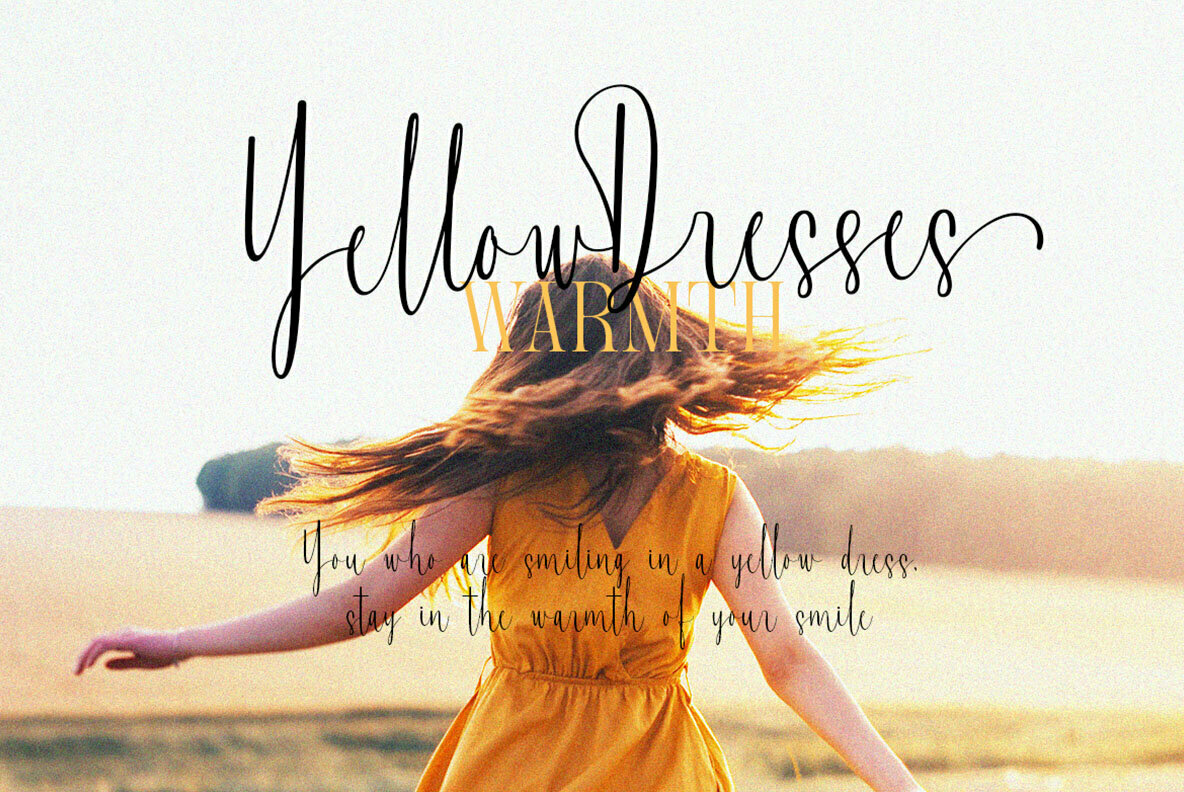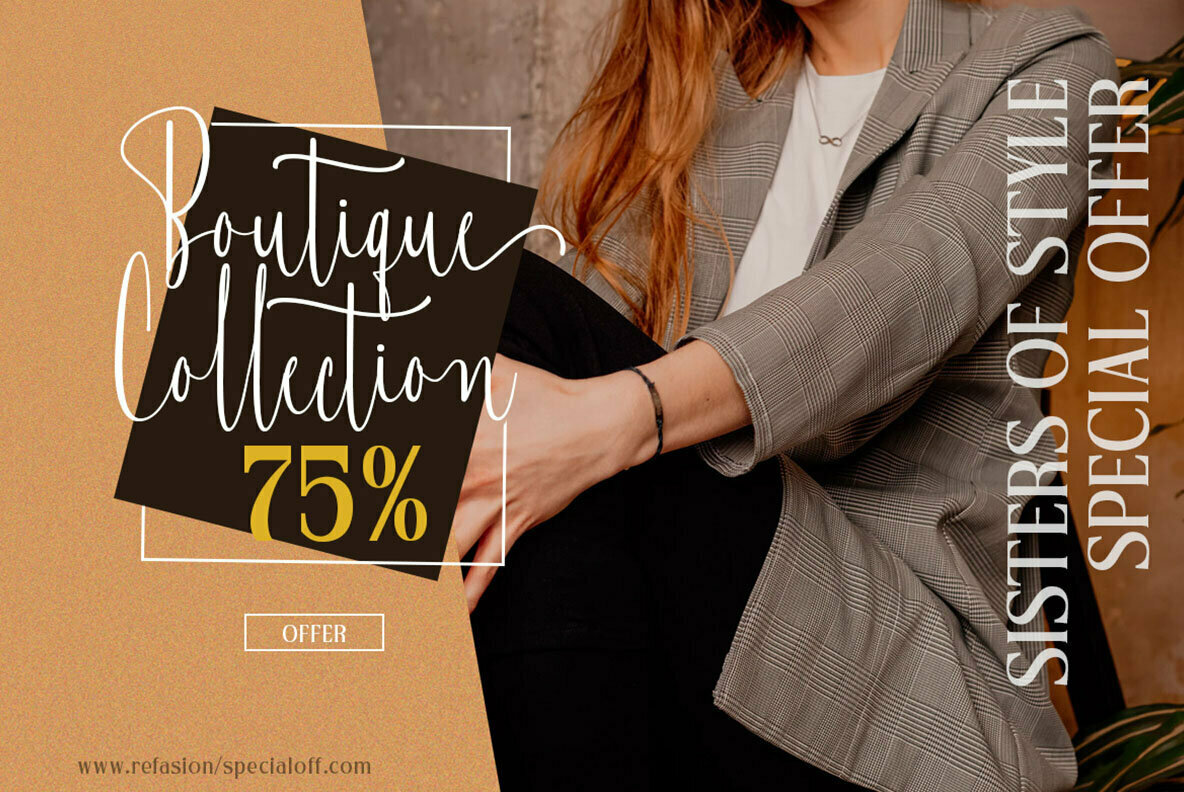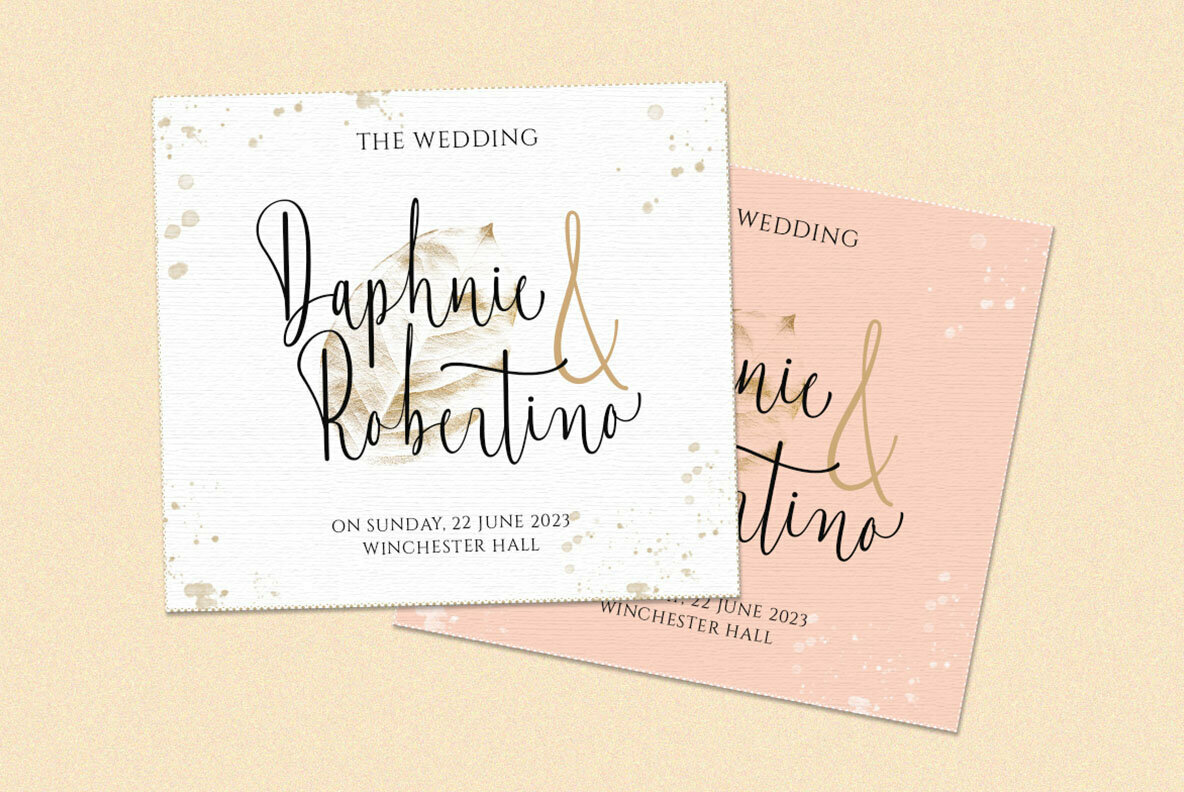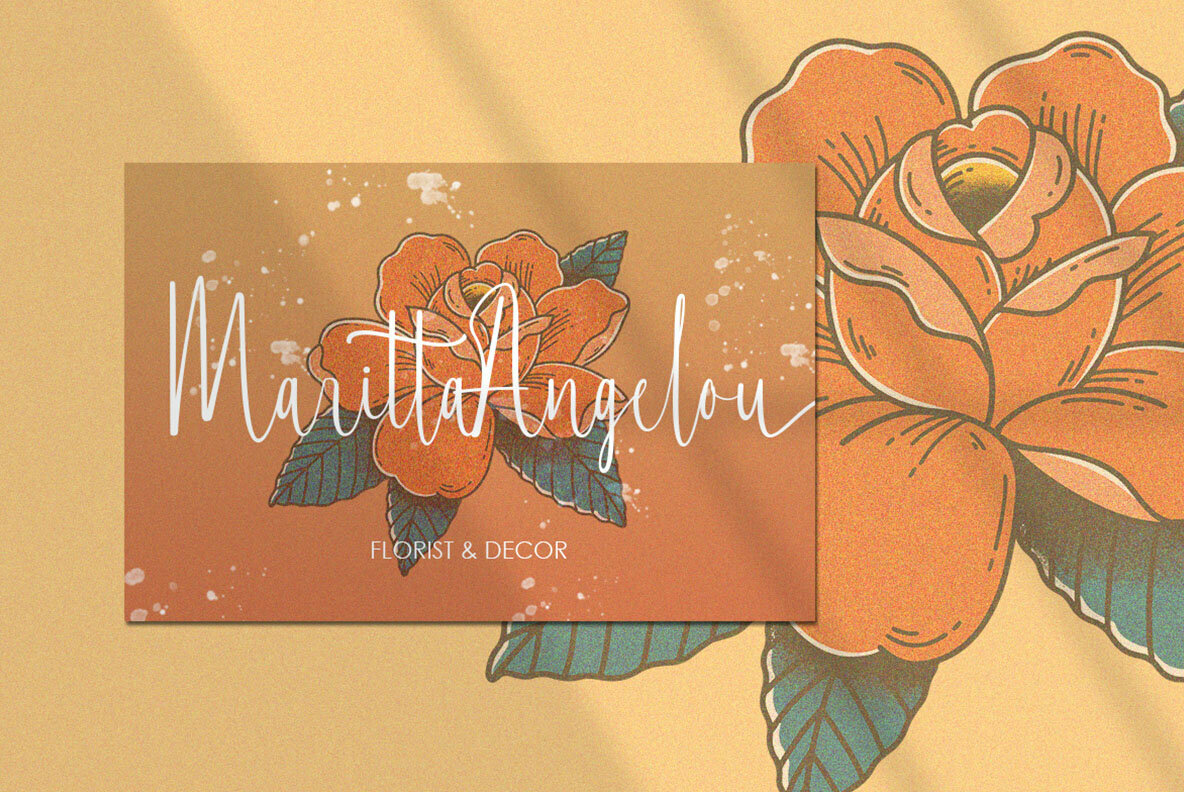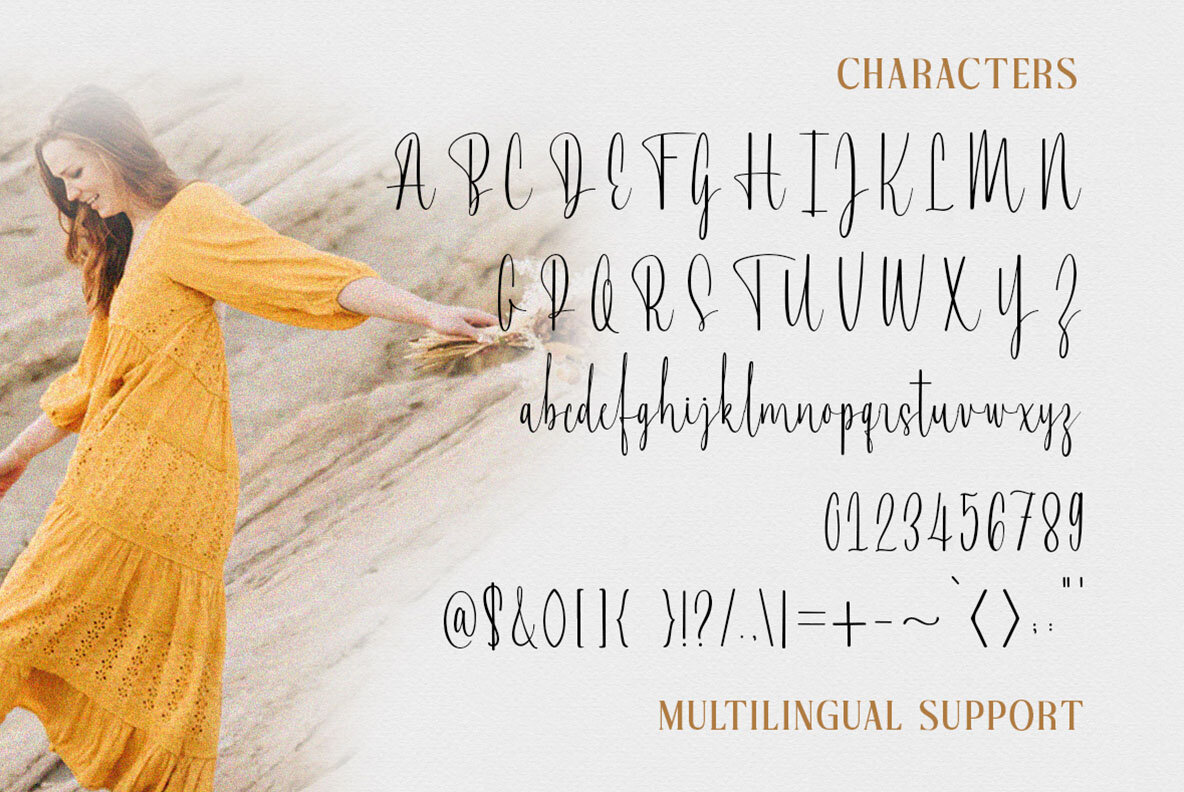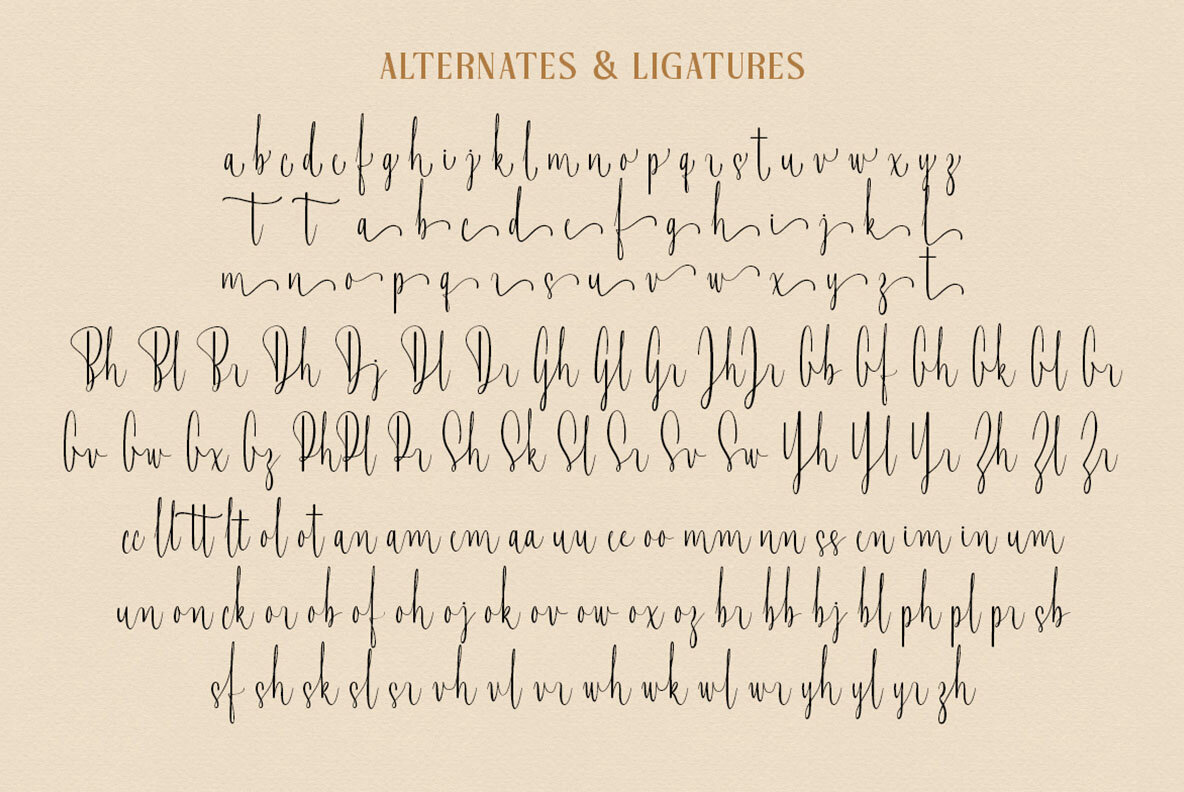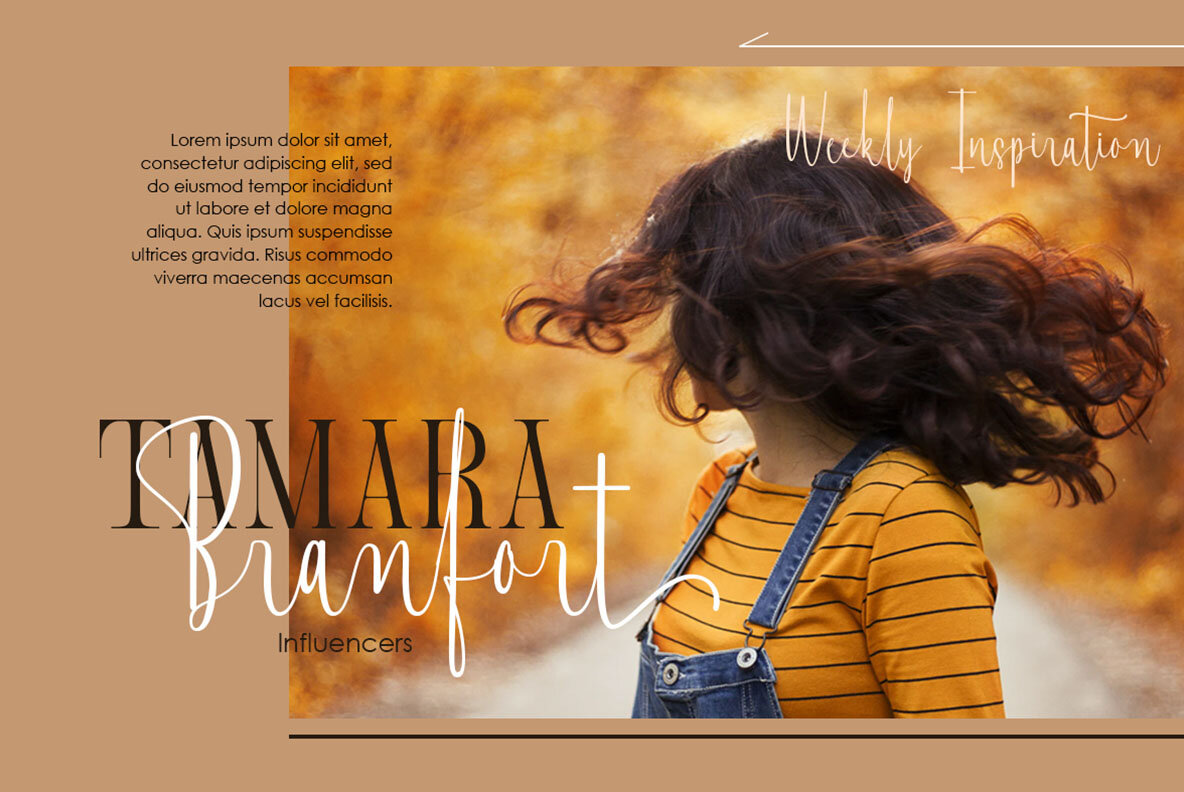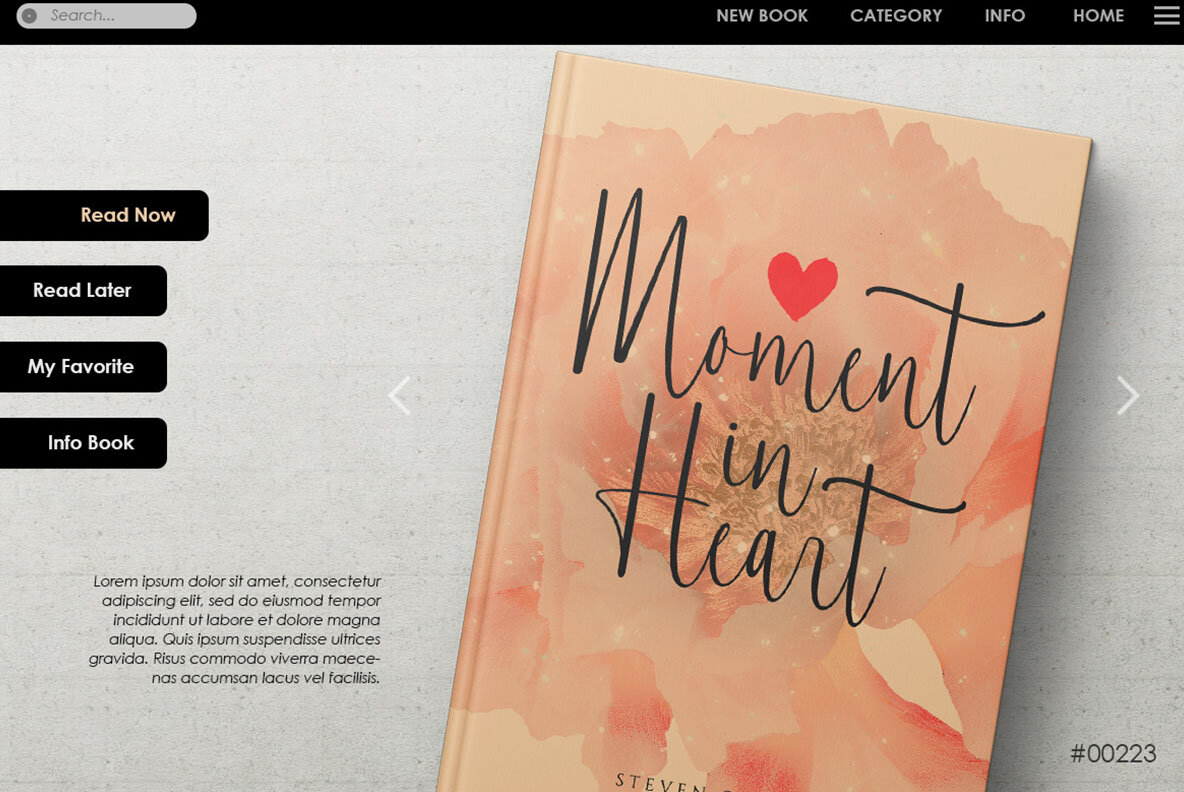
Bert Watson Font
Bert Watson Regular
Transform your design projects with Bert Watson, a beauty script font from Letterhend Studio. This elegant typeface draws inspiration from modern calligraphy, imparting a natural handwriting style that is both sophisticated and versatile. Designed to serve as an impeccable digital signature, it also excels in various formal applications. Whether you're crafting logos, invitations, or packaging, Bert Watson offers a wealth of creative flexibility. Its array of alternates and ligatures features playful swashes, allowing a personalized touch to every design. Ideal for use in branding, magazines, and even on wedding cards, this font adapts seamlessly to any advertising need.Bert Watson: A Modern Calligraphy Script Font